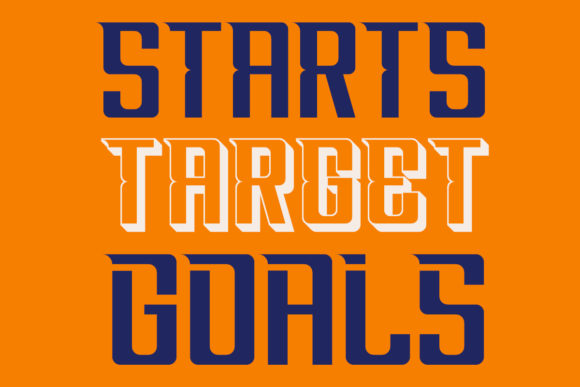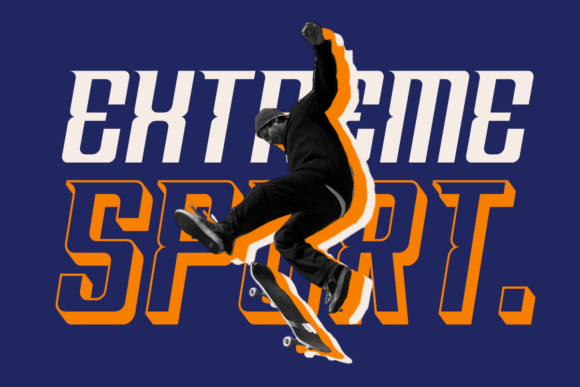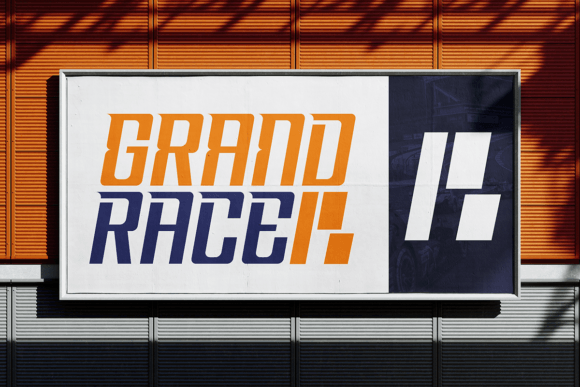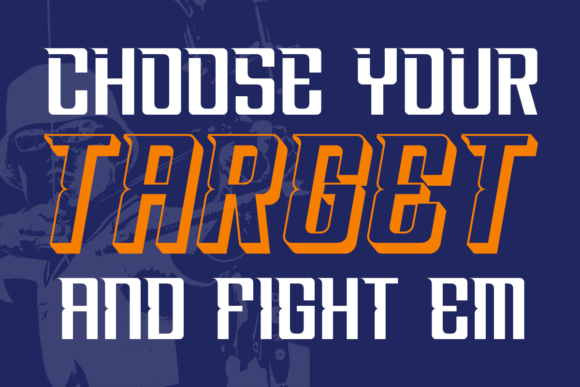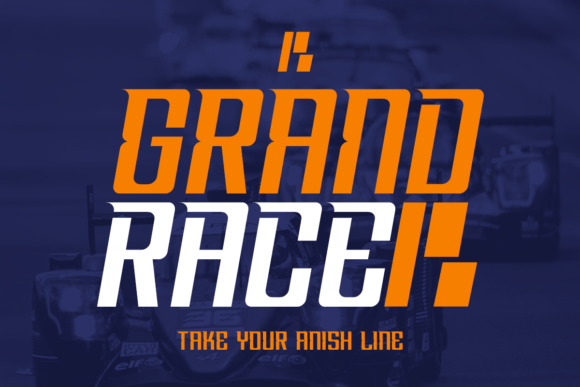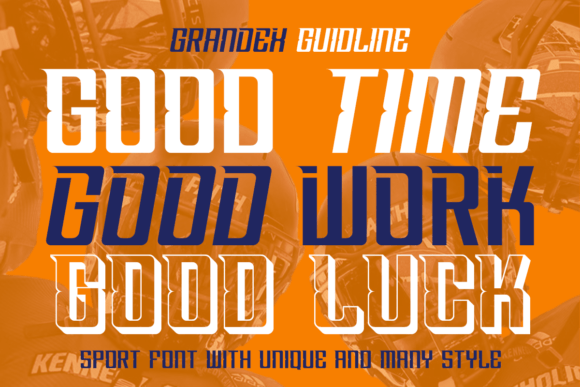
Introducing Grandex: The Ultimate Modern Sports Font for Racing Enthusiasts
In the world of design, fonts play a crucial role in conveying the tone and personality of a brand or project. For designers and crafters looking to capture the thrill and intensity of racing, a font that embodies speed, power, and energy is essential. This is where Grandex comes in – a modern sports font designed to bring the racing spirit to life.
The Inspiration Behind Grandex
Grandex is more than just a font – it’s an experience. Inspired by the high-octane world of racing, Grandex is crafted to evoke the rush of adrenaline that comes with speeding down the track. Its bold, all-caps letterforms are designed to convey the sense of urgency and excitement that defines the racing experience.
Design Features of Grandex
So, what sets Grandex apart from other fonts? Here are some of its key design features:
• Bold and Powerful Letterforms: Grandex features bold, all-caps letterforms that exude confidence and strength. Perfect for headlines, titles, and any design that demands attention.
• Sharp Corners and Solid Shapes: The font’s sharp corners and solid shapes give it a rugged, high-performance feel that’s perfect for racing-inspired designs.
• Modern and Sleek: Grandex has a distinctly modern feel that’s perfect for designers and crafters looking to create contemporary, high-energy designs.
Perfect for Racing-Inspired Designs
Grandex is specifically designed for designers and crafters who want to capture the essence of racing in their work. Whether you’re creating a logo, poster, or social media graphic, Grandex is the perfect choice for any design that demands attention. Here are some examples of how you can use Grandex:
• Racing Logos and Branding: Use Grandex to create bold, eye-catching logos and branding materials that capture the spirit of racing.
• Posters and Flyers: Grandex is perfect for creating high-energy posters and flyers that promote racing events, teams, or sponsors.
• Social Media Graphics: Use Grandex to create engaging social media graphics that showcase your passion for racing.
Why Choose Grandex?
With so many fonts to choose from, why should you choose Grandex? Here are just a few reasons:
• Unique and Memorable: Grandex is a one-of-a-kind font that’s sure to make your designs stand out.
• High-Quality Design: Grandex is crafted with precision and attention to detail, ensuring a high-quality design that’s perfect for professional applications.
• Easy to Read: Despite its bold and edgy design, Grandex is easy to read, making it perfect for a wide range of applications.
In conclusion, Grandex is the ultimate modern sports font for designers and crafters looking to capture the thrill and intensity of racing. With its bold, all-caps letterforms, sharp corners, and solid shapes, Grandex brings the racing spirit to life. Whether you’re creating logos, posters, or social media graphics, Grandex is the perfect choice for any design that demands attention. So why wait? Download Grandex today and start creating high-energy designs that leave a lasting impression.
Key Features and Benefits at a Glance
Feature Benefit
Bold, all-caps letterforms Conveys speed, power, and energy
Sharp corners and solid shapes Gives designs a rugged, high-performance feel
Modern and sleek design Perfect for contemporary, high-energy designs
Easy to read Suitable for a wide range of applications